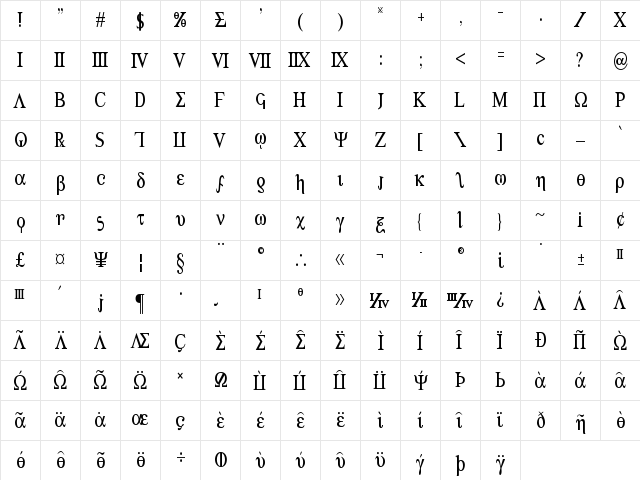
Achilles Condensed Condensed
Design Context for Achilles Condensed Typeface
Achilles Condensed is a composed and adaptable typeface that performs quietly and consistently across a wide range of design contexts. The condensed width makes it efficient for tight spaces without sacrificing legibility.